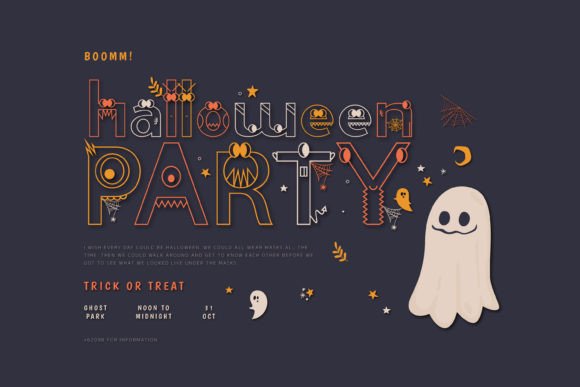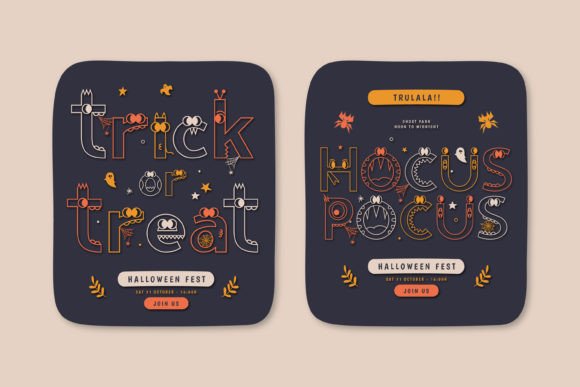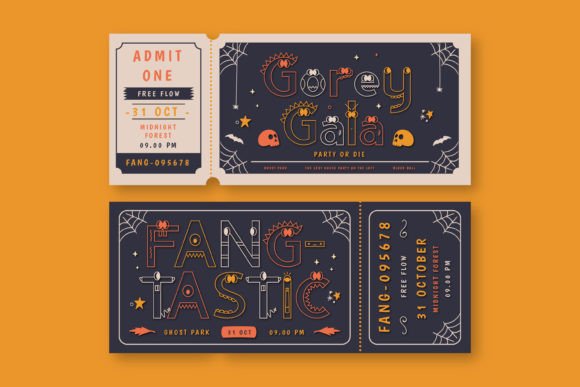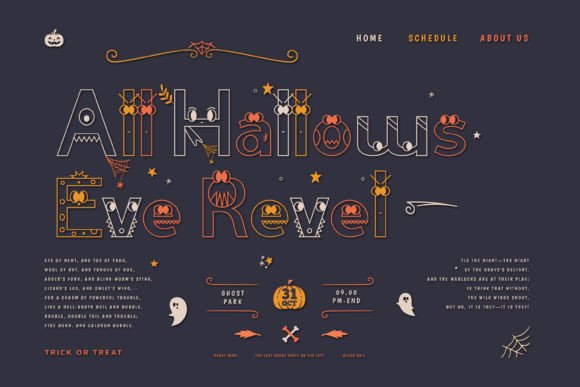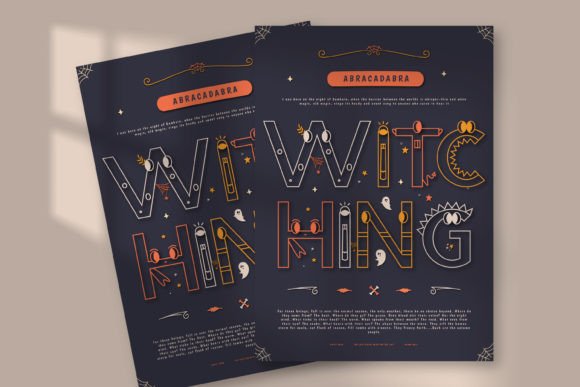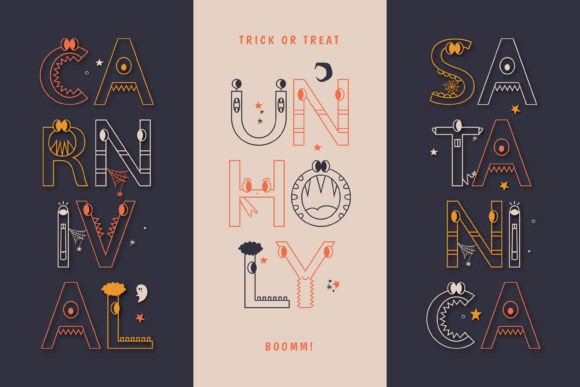
The Elmonster Font: A Spooky-ooky Game-Changer for Your Halloween Projects
Ah, Halloween – the one time of the year where creativity knows no bounds, and our designs can get as spooky as we want them to be! I still remember the time I was working on a Halloween-themed project for a client, and I just couldn’t find the right font to bring the eerie atmosphere to life. The client wanted something that would make their audience shiver with excitement, but everything I found was either too generic or too over-the-top. That’s when I stumbled upon the Elmonster font, and let me tell you, it was love at first sight! ✨
An Honest Review of Elmonster Font
What I Love About Elmonster Font
- 💀 **Unique and quirky style**: Elmonster font is unlike any other font out there. Its peculiar design is guaranteed to make your Halloween projects stand out from the crowd.
- 🎃 **Perfect for Halloween projects**: The font’s spooky-ooky vibe makes it an ideal choice for Halloween-themed designs, but its versatility also allows you to use it for other creative projects.
- ✅ **Easy to read**: Despite its quirky design, Elmonster font is surprisingly easy to read, making it perfect for headlines, titles, and short paragraphs.
- ✨ **High-quality design**: The font is carefully crafted with attention to detail, ensuring that it looks great in various sizes and resolutions.
While Elmonster font is an excellent choice for many projects, there are a few things to keep in mind: 🤔
- ⚠️ **Limited use cases**: While Elmonster font is perfect for Halloween projects, it might not be the best choice for more formal or professional designs.
- ⚠️ **Glyph limitations**: As with any font, there might be limitations to the number of glyphs available, which could impact your design flexibility.
The Backstory Behind Elmonster Font
Elmonster font was designed by a team of creatives who wanted to create a font that would capture the essence of Halloween. Inspired by the spooky and eerie atmosphere of the holiday, they crafted a font that’s both quirky and captivating. The design process involved experimenting with various letterforms and shapes to create a unique and recognizable style.
Q: What is Elmonster font best used for?
Elmonster font is perfect for Halloween-themed projects, but its versatility also allows you to use it for other creative projects, such as party invitations, flyers, and social media graphics.
Q: Is Elmonster font easy to read?
Yes, despite its quirky design, Elmonster font is surprisingly easy to read, making it perfect for headlines, titles, and short paragraphs.
Q: Is Elmonster font available in different weights or styles?